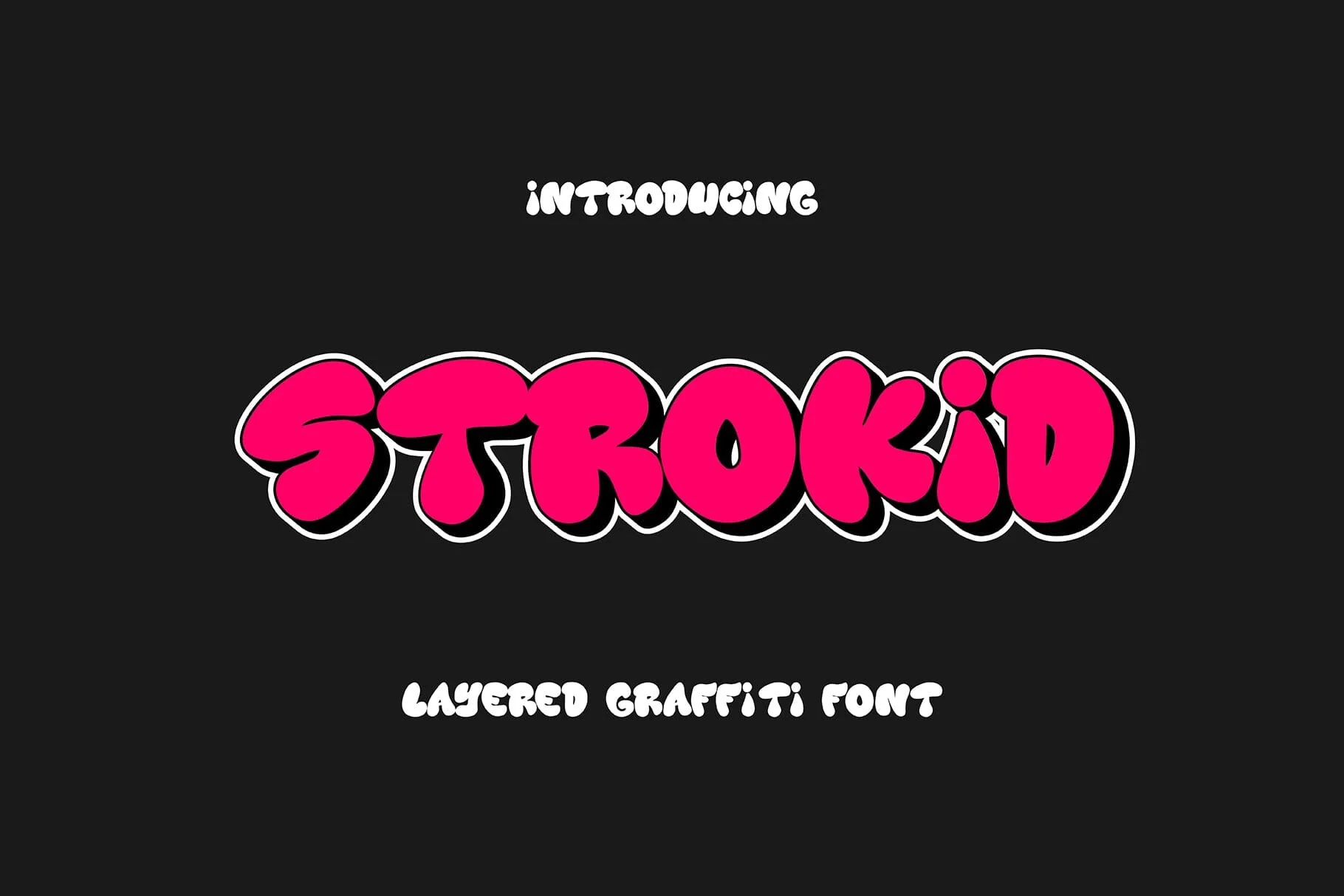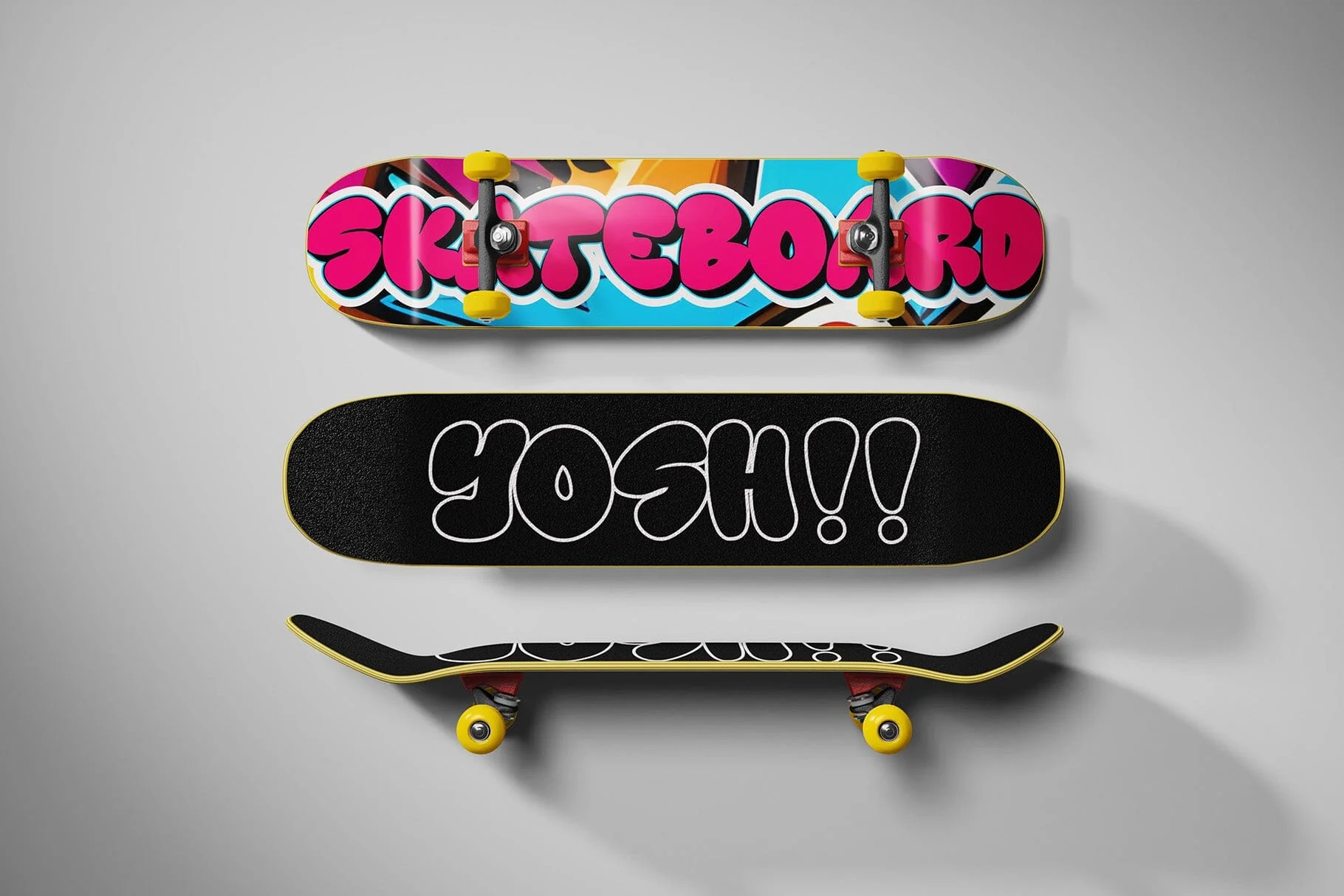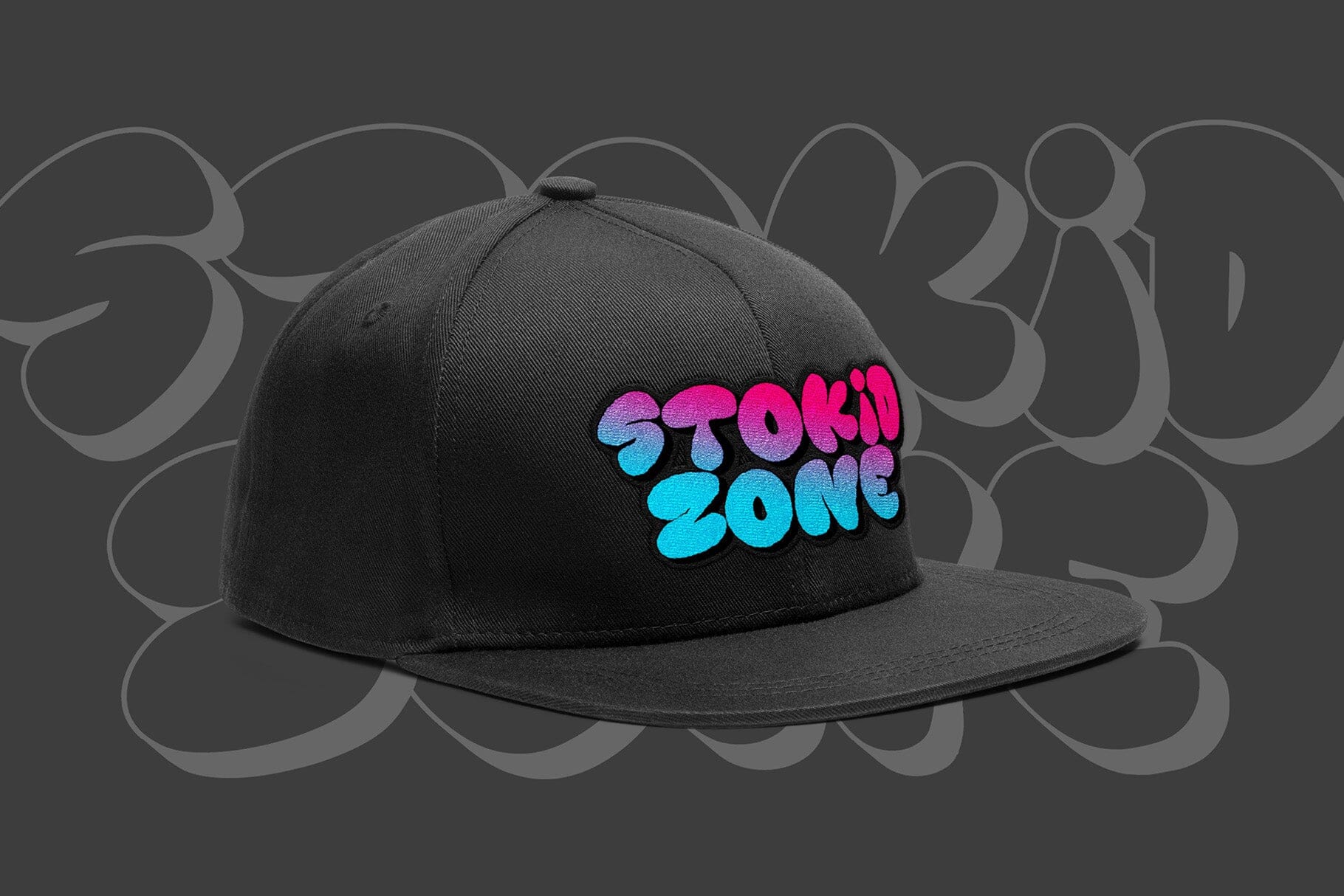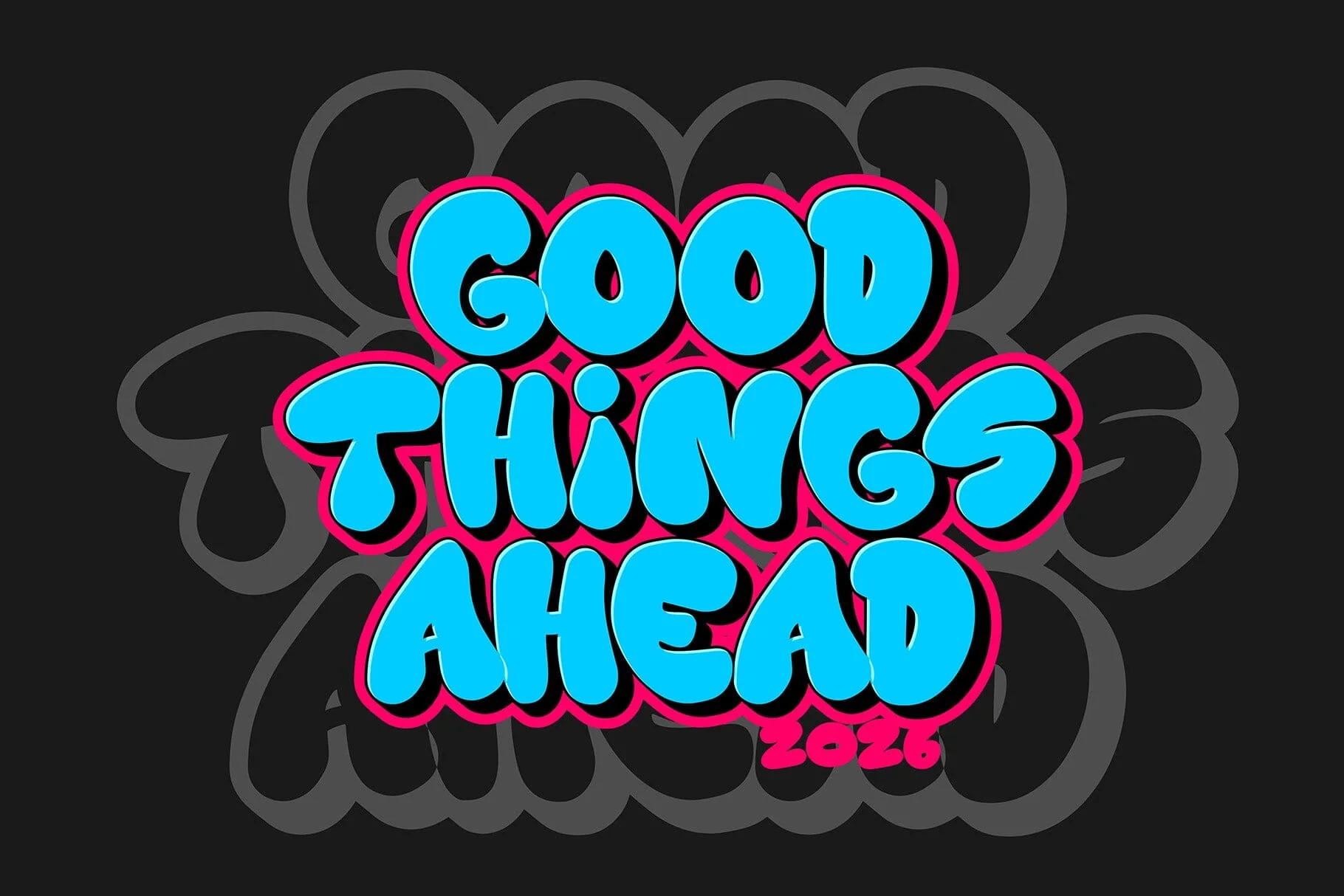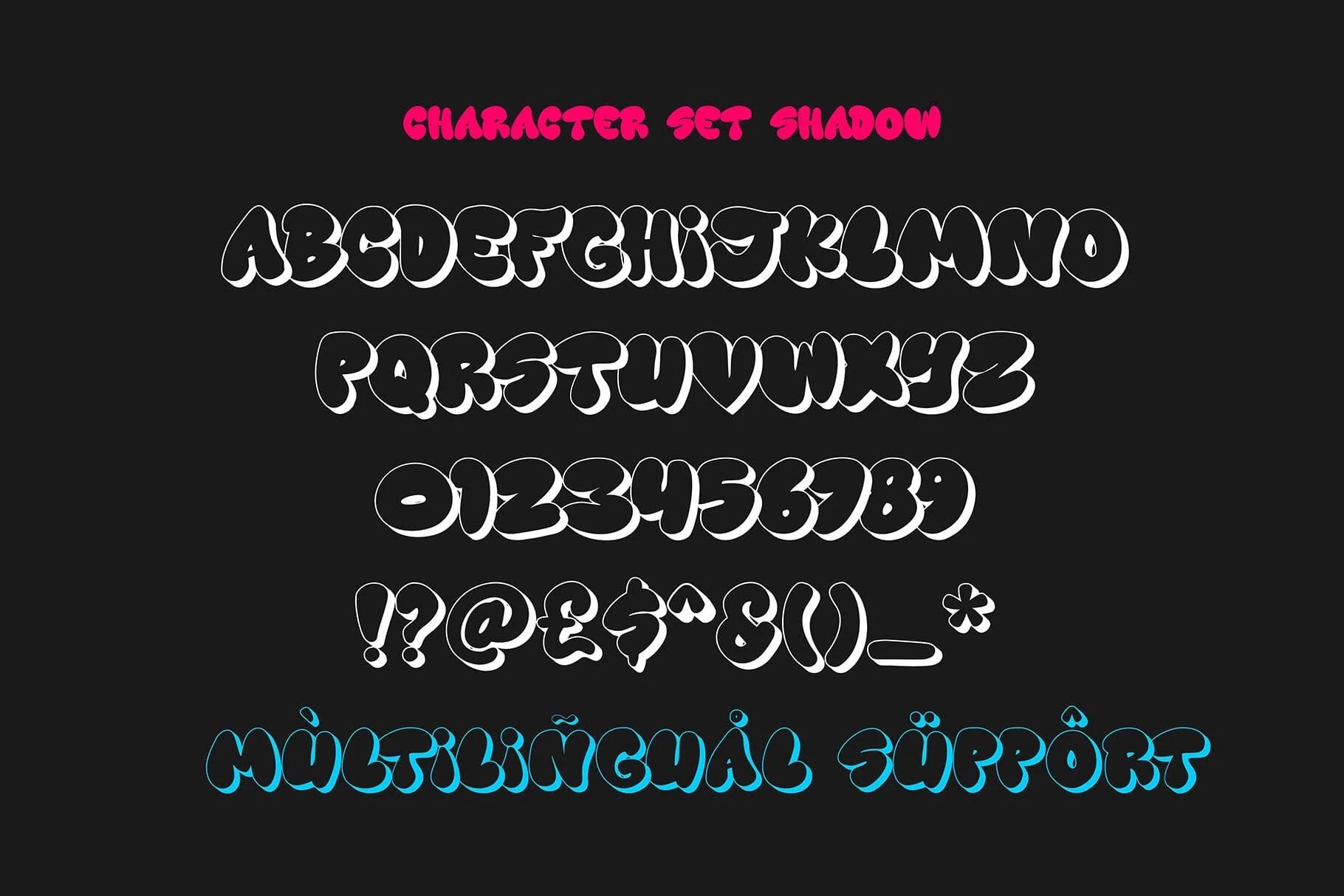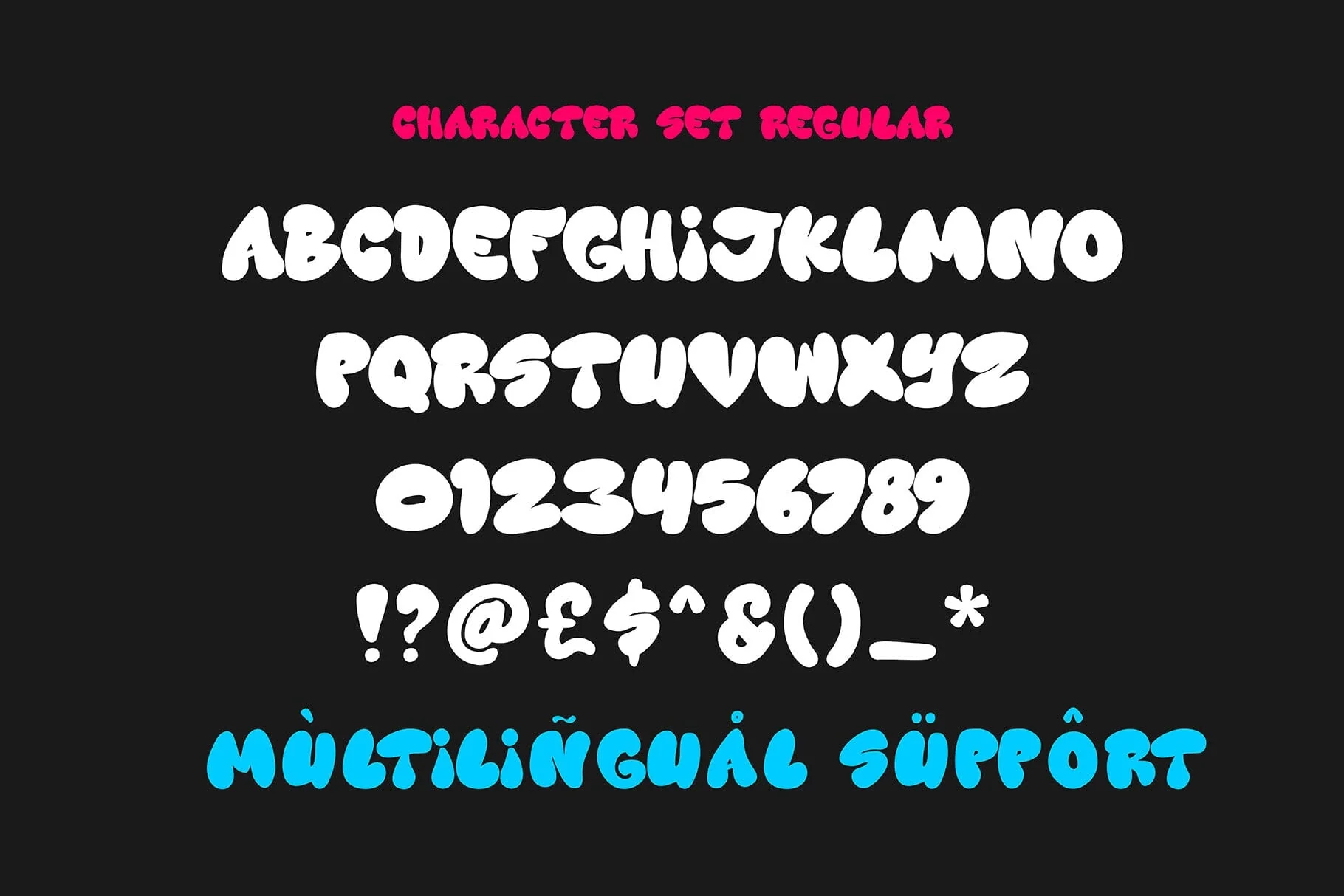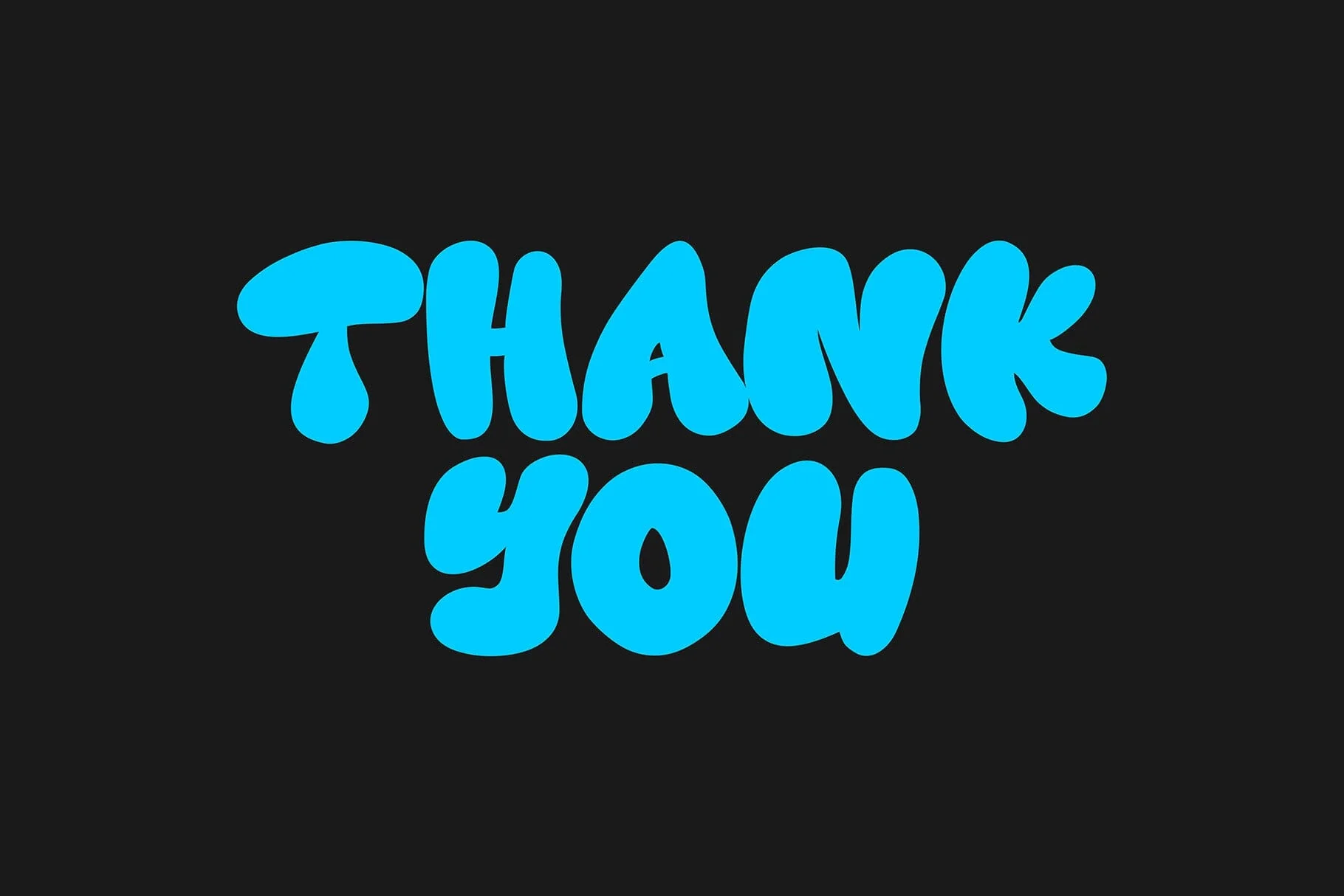
Strokid Layered | Bubble Graffiti Font
Strokid is a bold layered bubble graffiti font inspired by authentic street art and modern urban culture. Featuring thick rounded letterforms and strong outline layers, this font allows you to create vibrant multi-color typography with ease. The layered system makes it perfect for combining fill and stroke effects to achieve dynamic graffiti-style compositions. Ideal for streetwear branding, hip hop and rap album covers, gaming graphics, posters, merchandise, stickers, YouTube thumbnails, and eye-catching headline designs. Strokid delivers strong visual impact while maintaining readability, making it perfect for both digital and print projects.